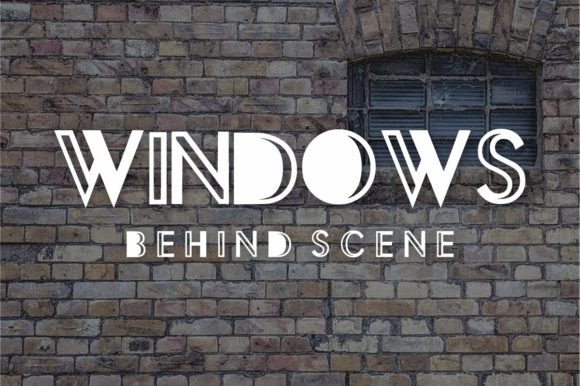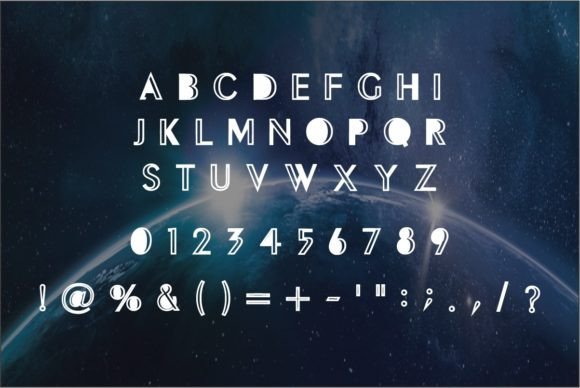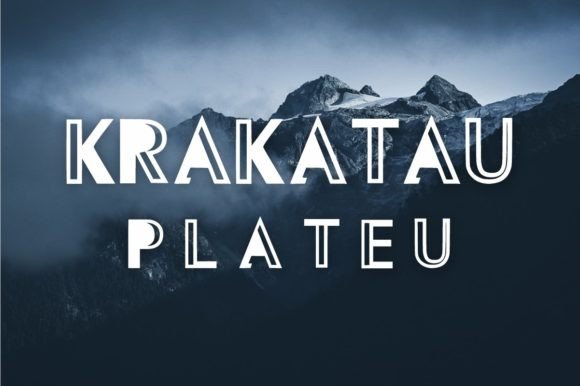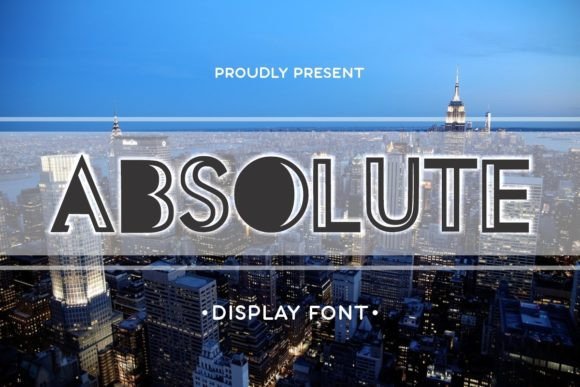
Introducing Absolute Font: The Cool and Friendly All-Caps Display Font
Are you tired of using the same old fonts for your designs? Look no further! Absolute Font is here to take your projects to the next level. This cool and friendly all-caps display font is perfect for retro-themed designs and a wide range of projects. With its casual and easy-to-read character, Absolute Font is sure to make your designs stand out.
The Perfect Font for Retro-Themed Designs
Absolute Font has a unique retro vibe that’s perfect for designers who want to create designs that evoke a sense of nostalgia. The font’s casual and friendly character makes it ideal for use in a variety of design projects, from posters and flyers to social media graphics and website headers.
Key Features of Absolute Font
- All-caps display font: Absolute Font is designed to make a statement. Its all-caps design makes it perfect for headlines, titles, and other applications where you want to grab attention.
- Casual and easy-to-read character: Unlike some display fonts that can be difficult to read, Absolute Font is designed to be easy on the eyes. Its casual character makes it perfect for use in a wide range of design projects.
- Retro-themed designs: Absolute Font has a unique retro vibe that’s perfect for designers who want to create designs that evoke a sense of nostalgia.
- Limitless options: With Absolute Font, your options are limitless. Use it for posters, flyers, social media graphics, website headers, and more.
Why Designers and Crafters Love Absolute Font
Designers and crafters love Absolute Font for its versatility and ease of use. Here are just a few reasons why:
- High-quality design: Absolute Font is designed to high standards, ensuring that your designs look professional and polished.
- Flexible: Absolute Font can be used in a wide range of design projects, from print to digital.
Tips for Using Absolute Font
Here are a few tips for getting the most out of Absolute Font:
- Use it for headlines and titles: Absolute Font is perfect for use in headlines and titles, where you want to grab attention and make a statement.
- Experiment with different colors: Absolute Font looks great in a wide range of colors, so don’t be afraid to experiment and find the perfect color for your design.
- Pair it with other fonts: Absolute Font can be paired with other fonts to create a unique and interesting design.
Absolute Font is a cool and friendly all-caps display font that’s perfect for retro-themed designs and a wide range of projects. With its casual and easy-to-read character, Absolute Font is sure to make your designs stand out. Whether you’re a designer or crafter, Absolute Font is a great choice for anyone looking to add a little excitement to their designs.